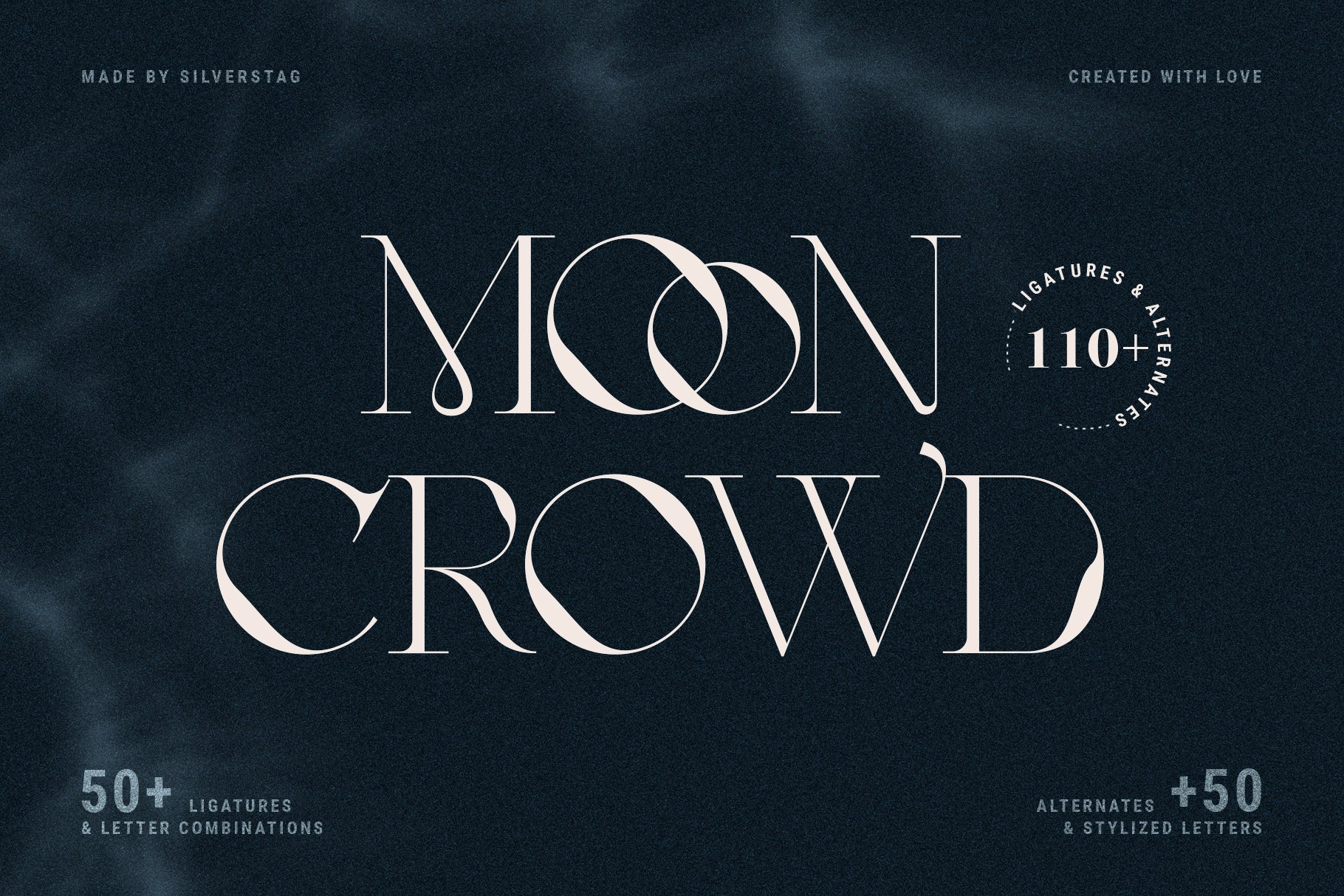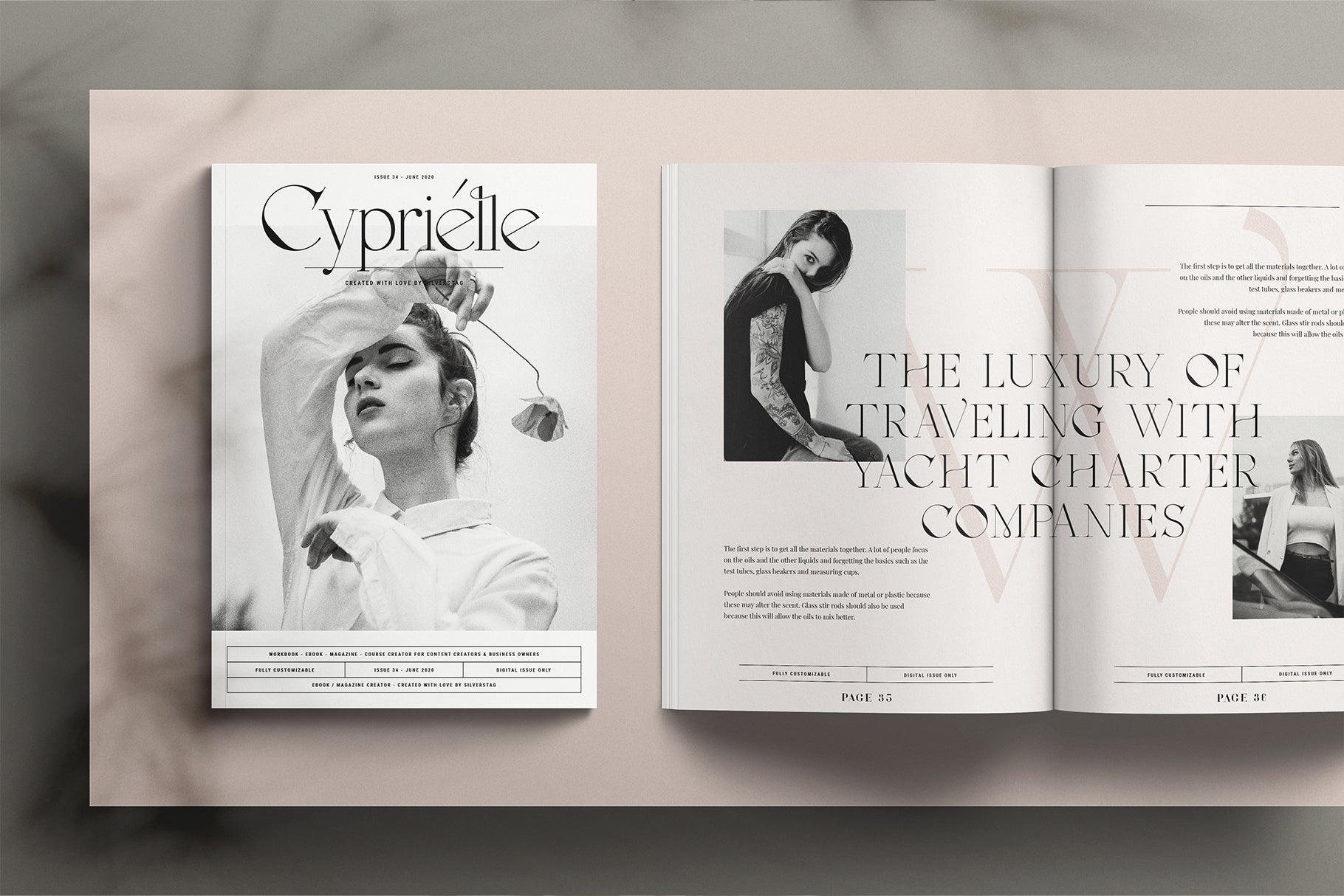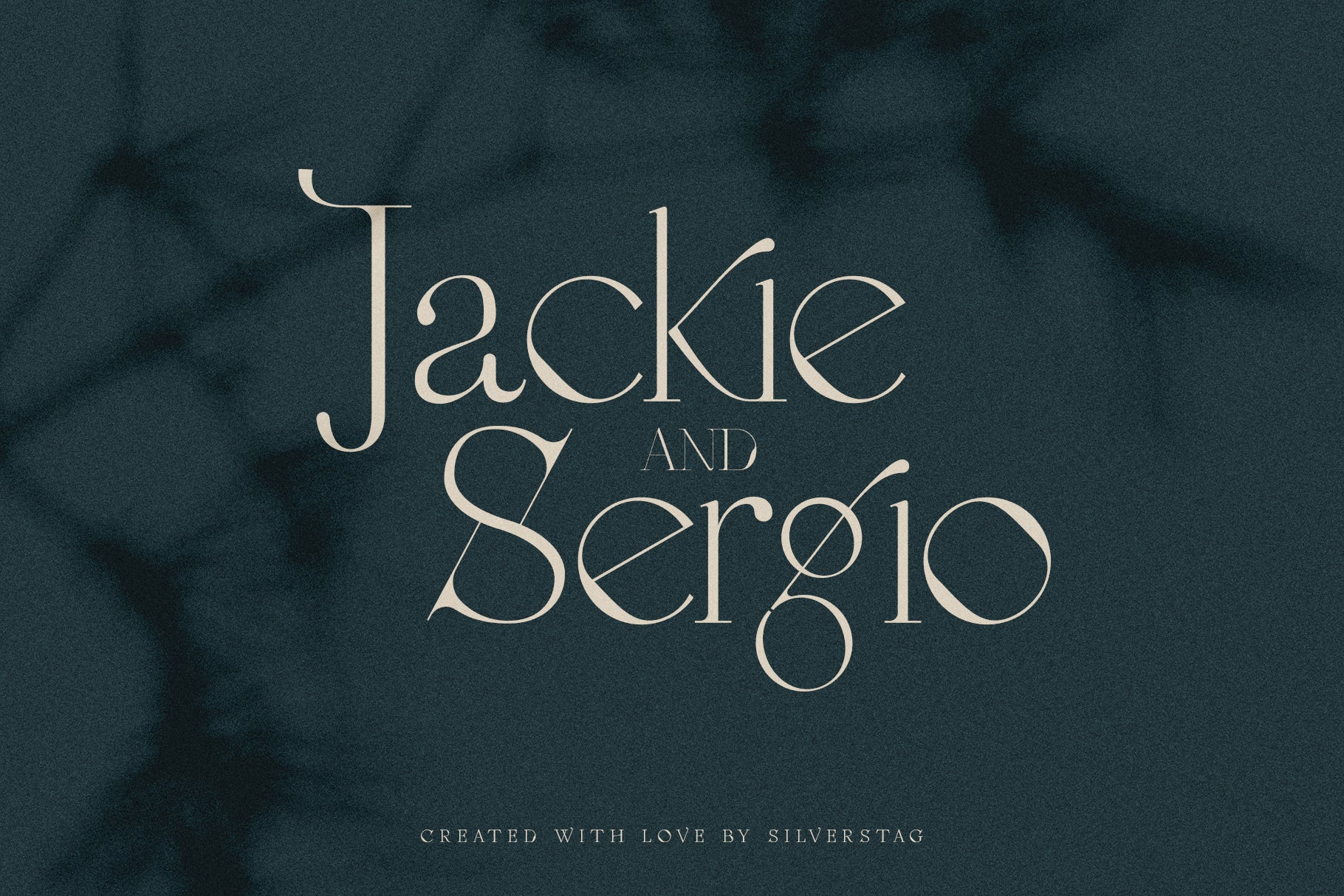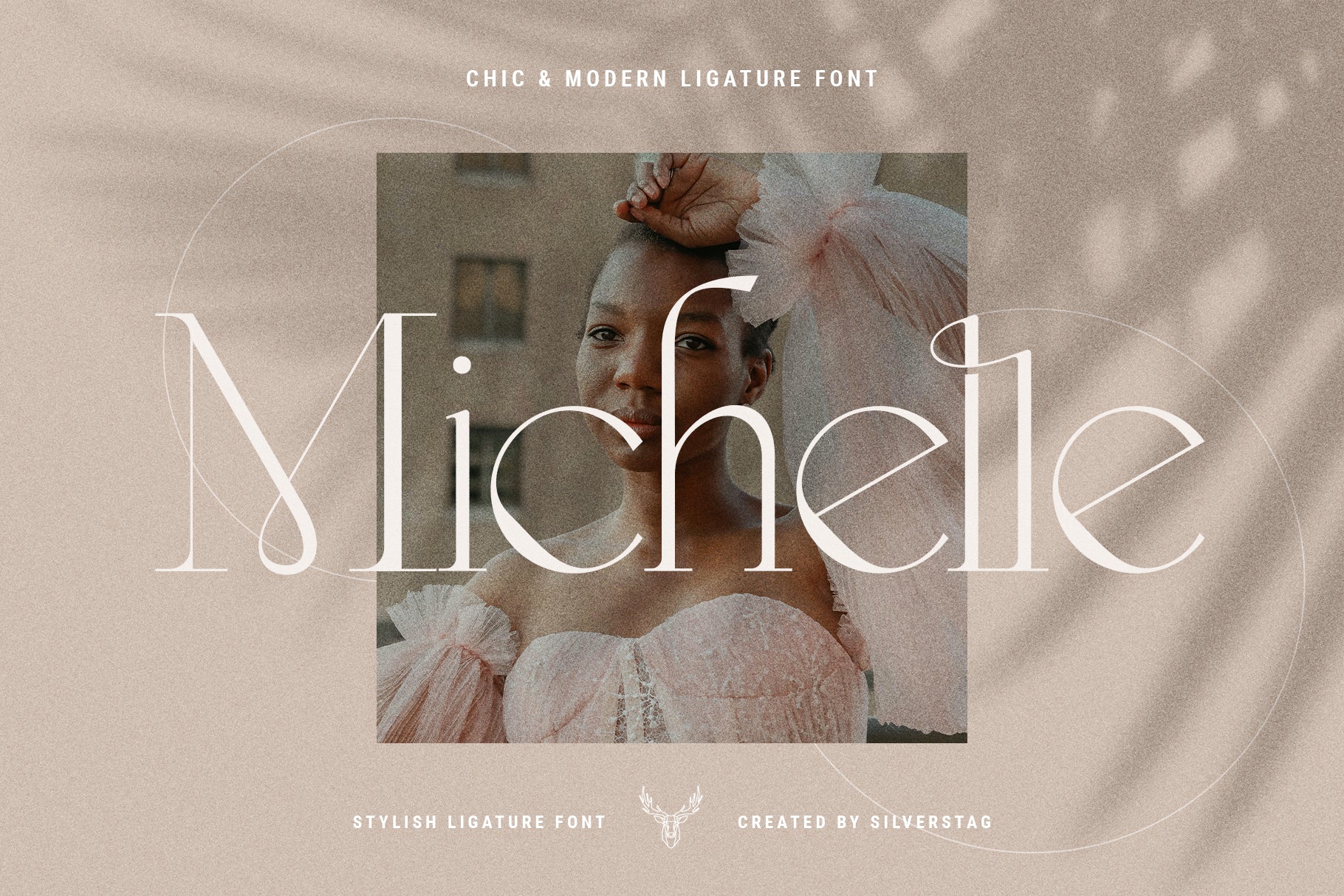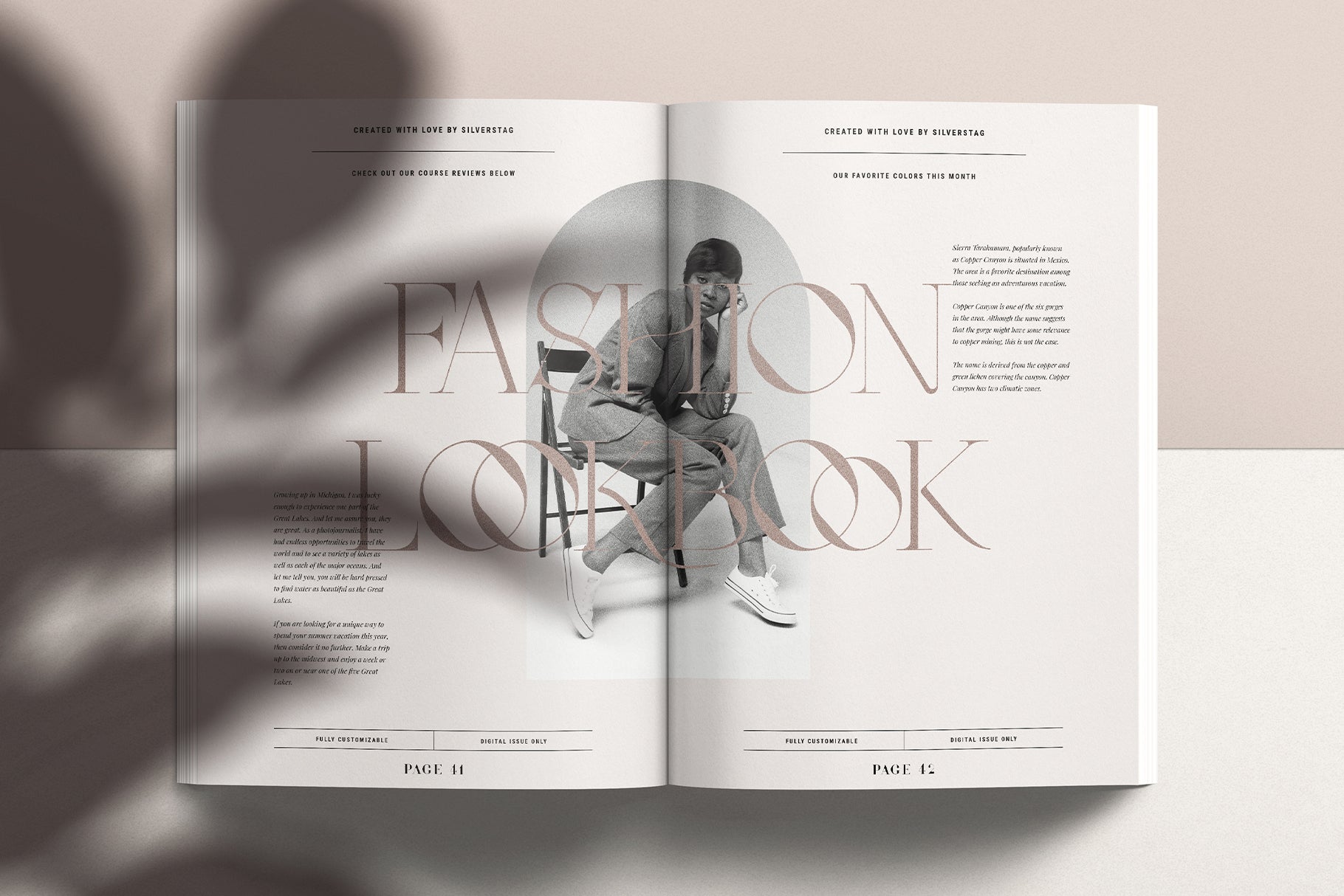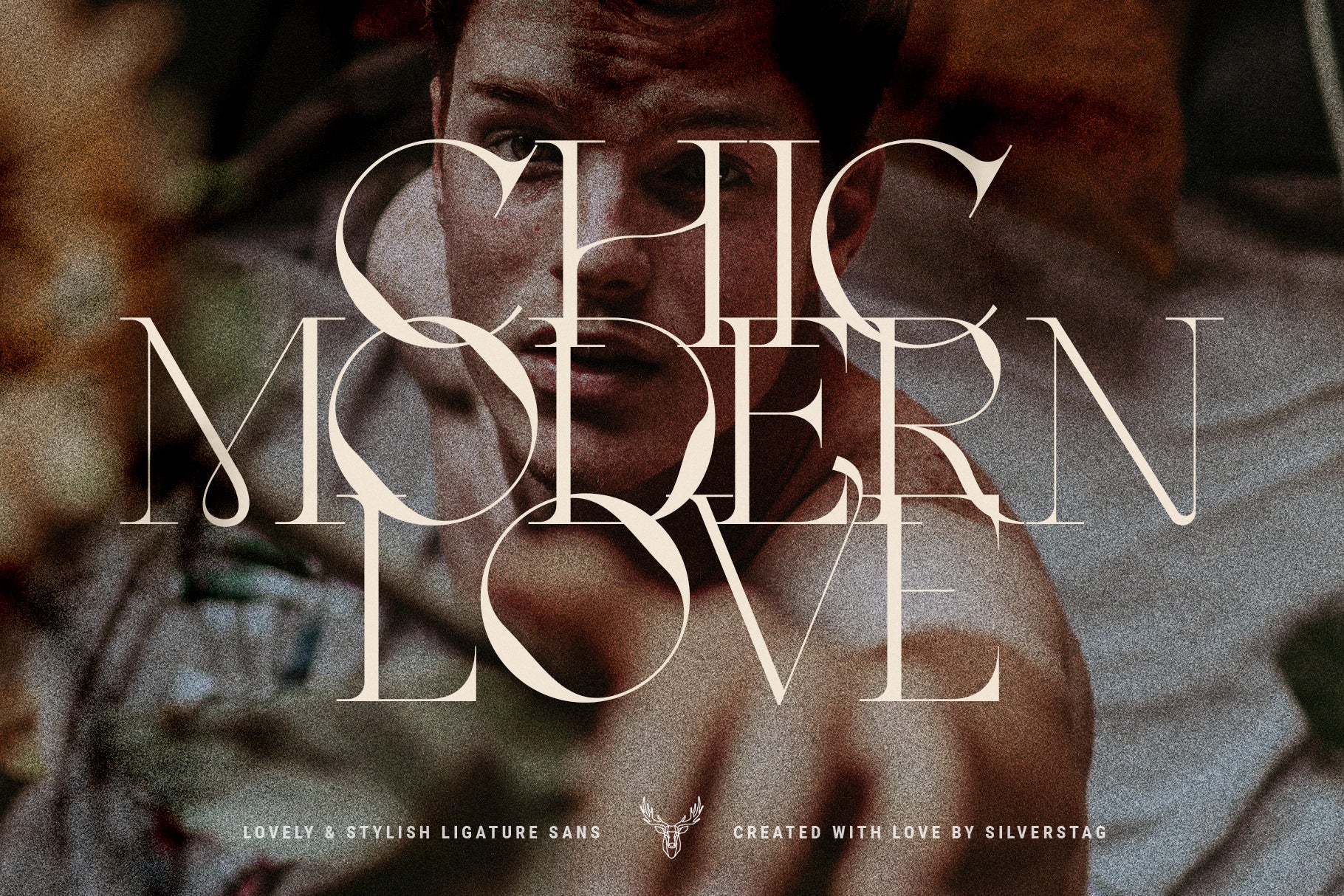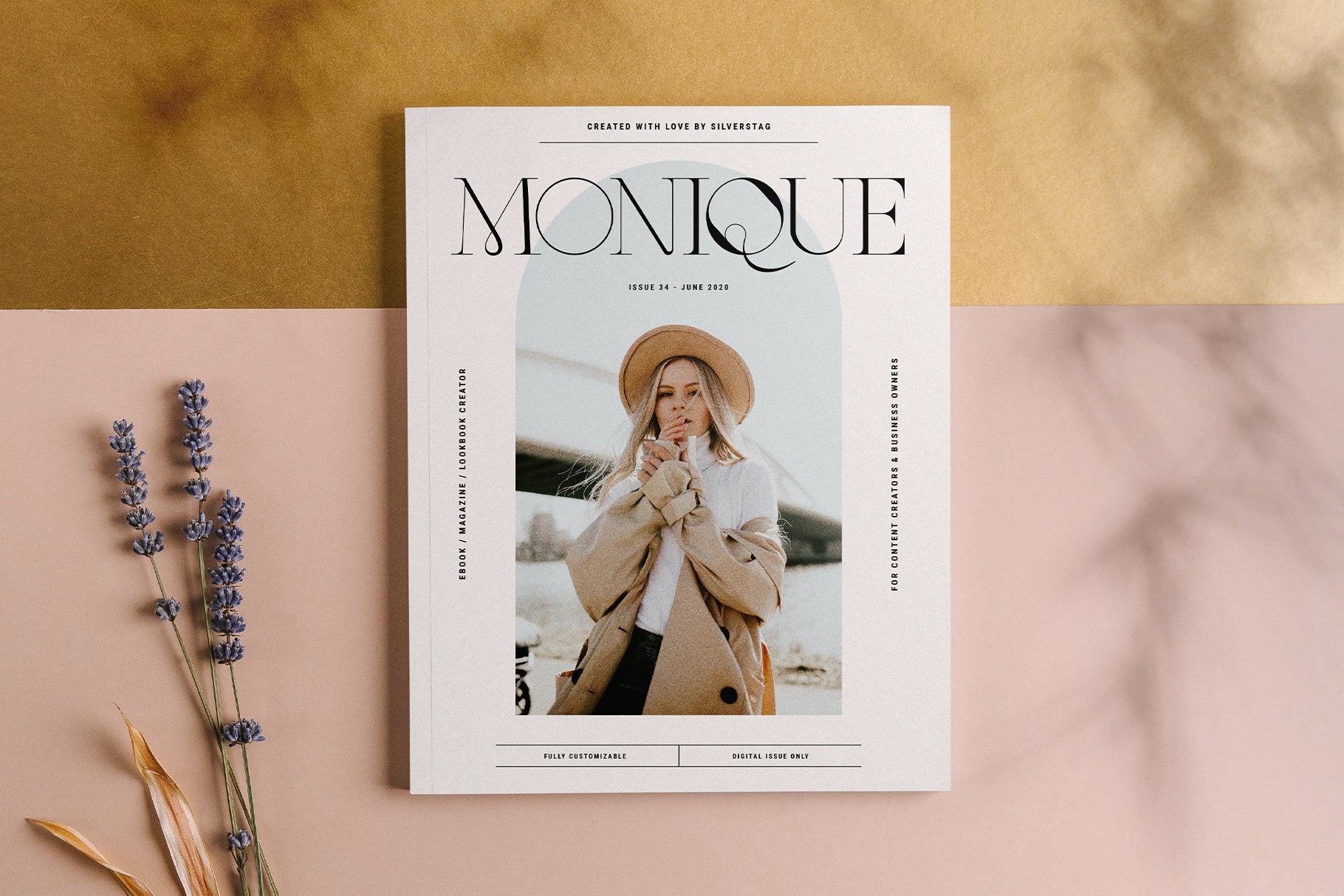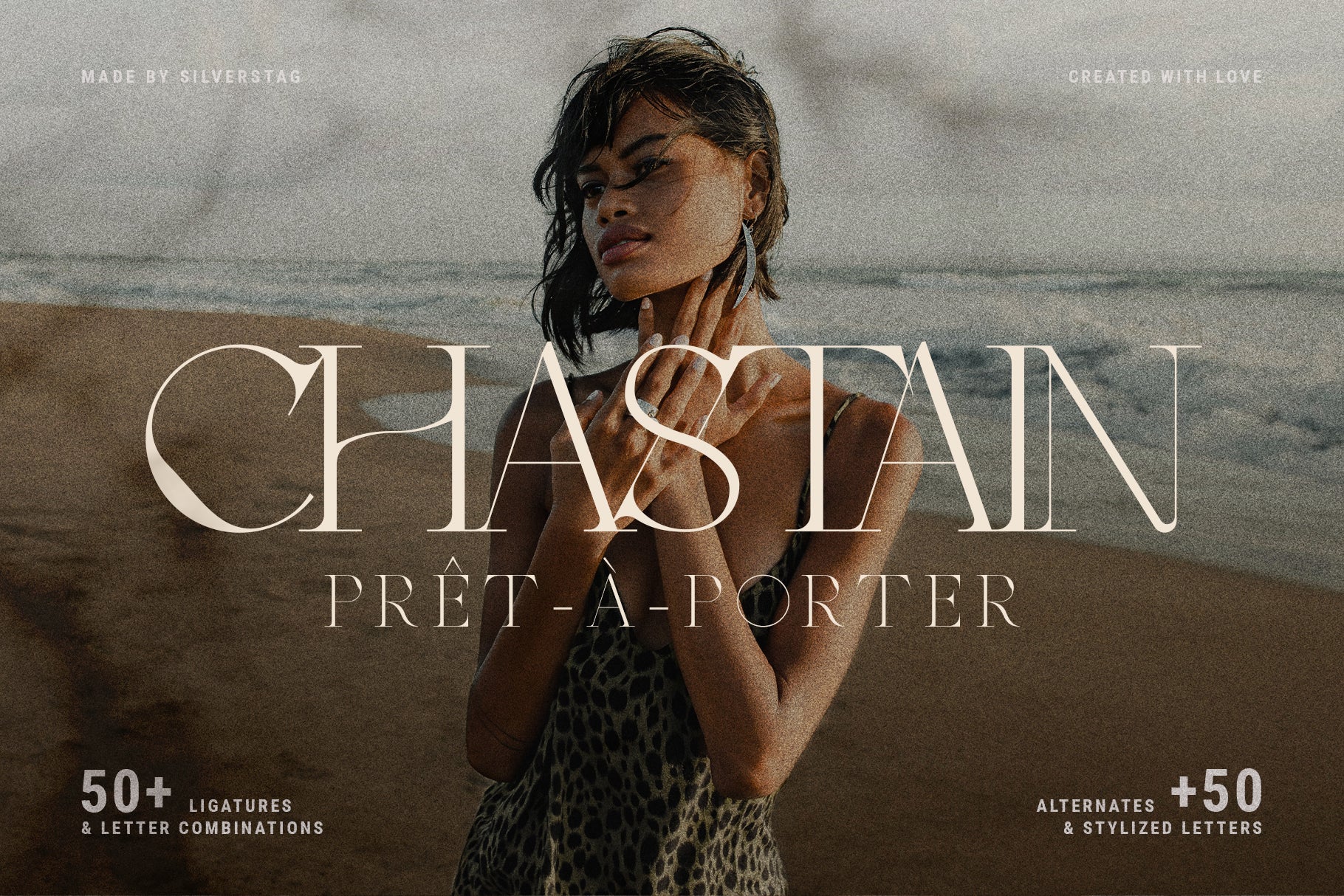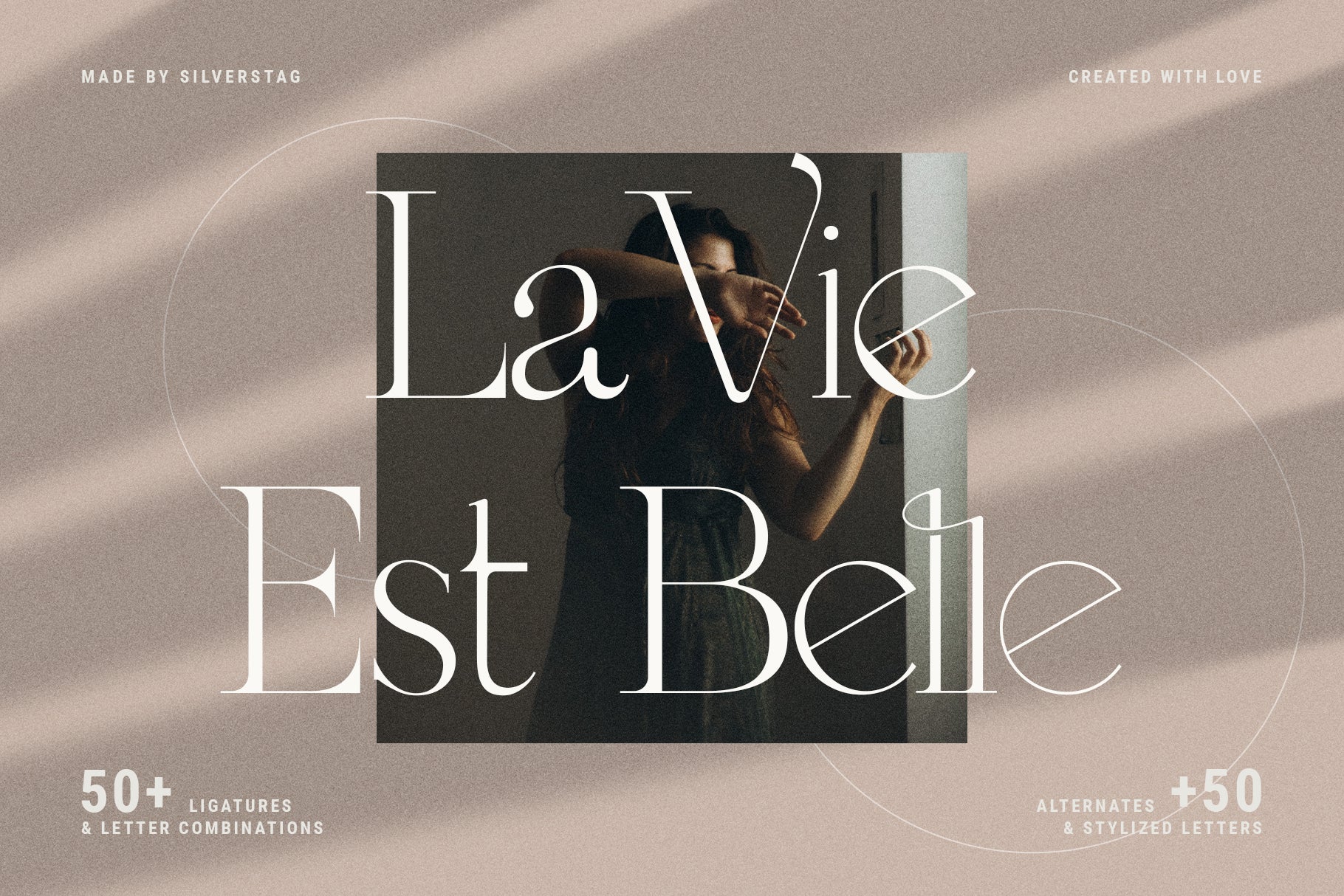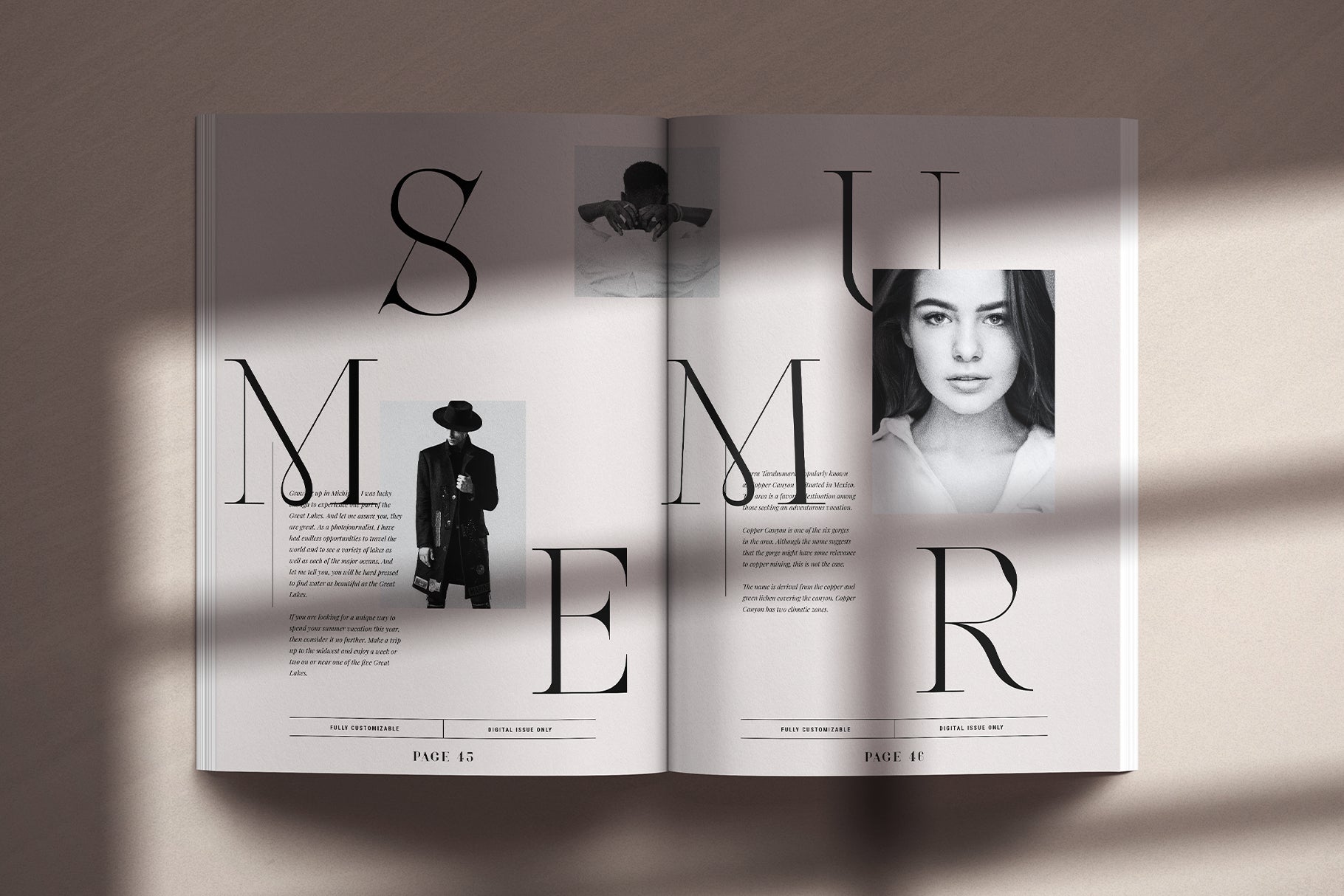
MOON CROWD is a sophisticated serif typeface inspired by the elegance and allure of high fashion. With over 100 custom ligatures and alternates, every character has been carefully hand-drawn to create a flawless and stylish appearance. Each letterform features soft rounded edges, giving this font a distinct and refined aesthetic that sets it apart from traditional serifs.
Whether you’re working on luxury branding, editorial spreads, wedding invitations, or modern social media content, MOON CROWD delivers a polished, high-end look across all platforms. It includes full language support, uppercase and lowercase characters, punctuation, numerals, and a Web Font Kit for digital use.
This typeface is ideal for designers who crave creativity and elegance in equal measure—MOON CROWD brings both, effortlessly.